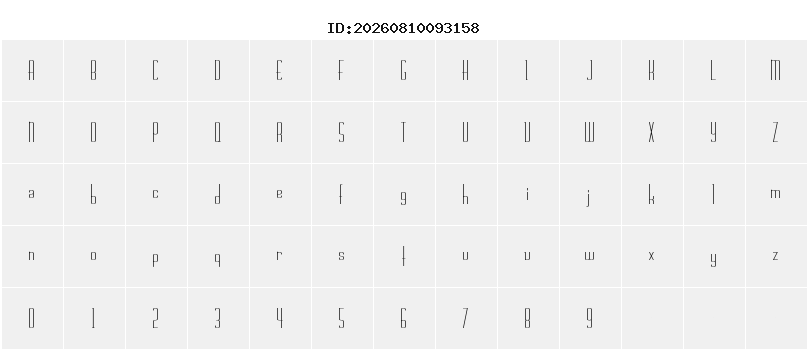
PCCalamero Preview
• Font Name: PCCalamero
• Full Font Name: PCCalamero
About PCCalamero.ttf
PCCalamero.ttf is a modern, elegant sans-serif font designed for ultimate readability and visual harmony. Perfect for branding, headlines, web design, and print materials.